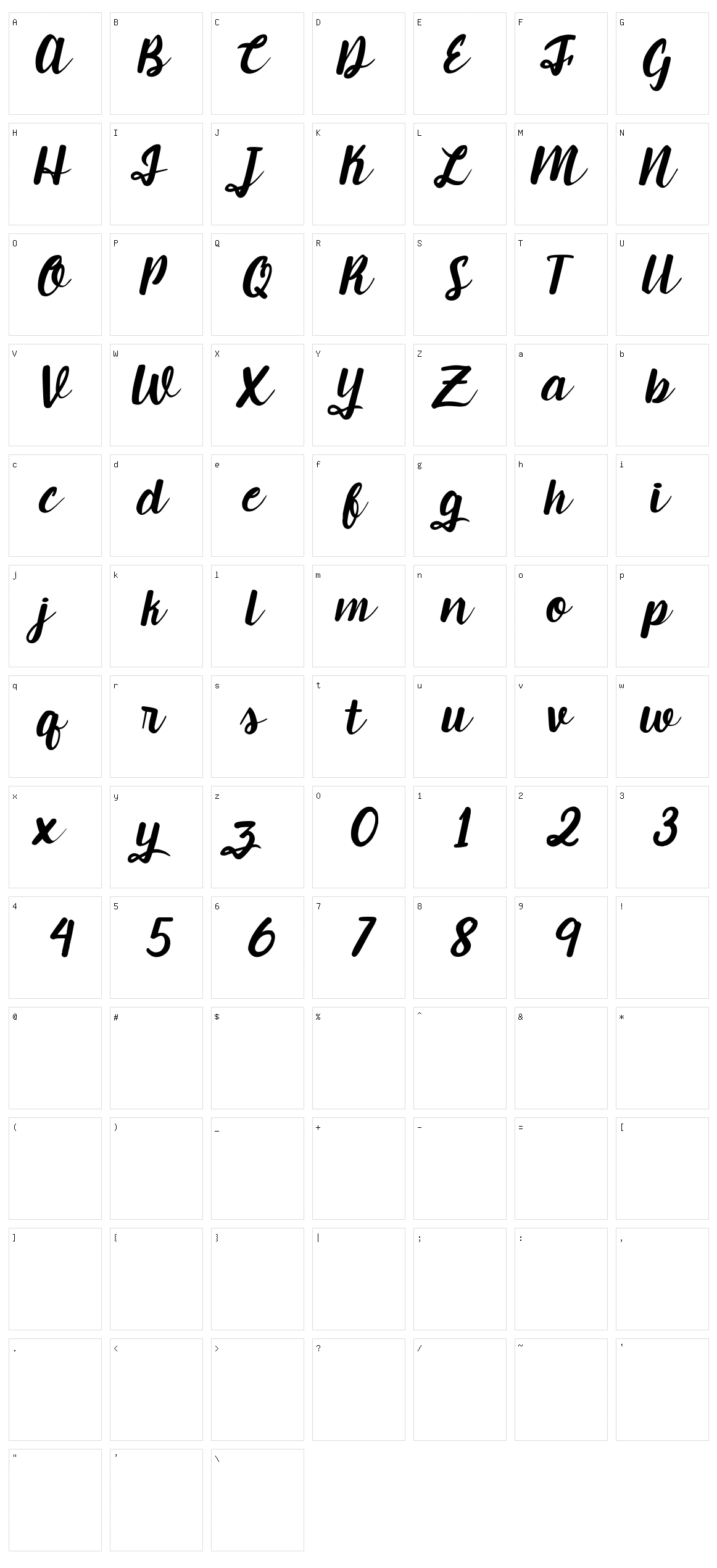
The free font Candlelight is carefully designed by PremiereGraphics, showcasing a thoughtful balance of creativity and usability and falls under the Script font style. When you download the ZIP file, it contains only 22.15 KB of font files, making it lightweight and quick to download. Please review the license details below to understand permitted usage and distribution rights. If license information is not available, we recommend using this font for personal projects only or contacting the author directly for commercial usage permissions.